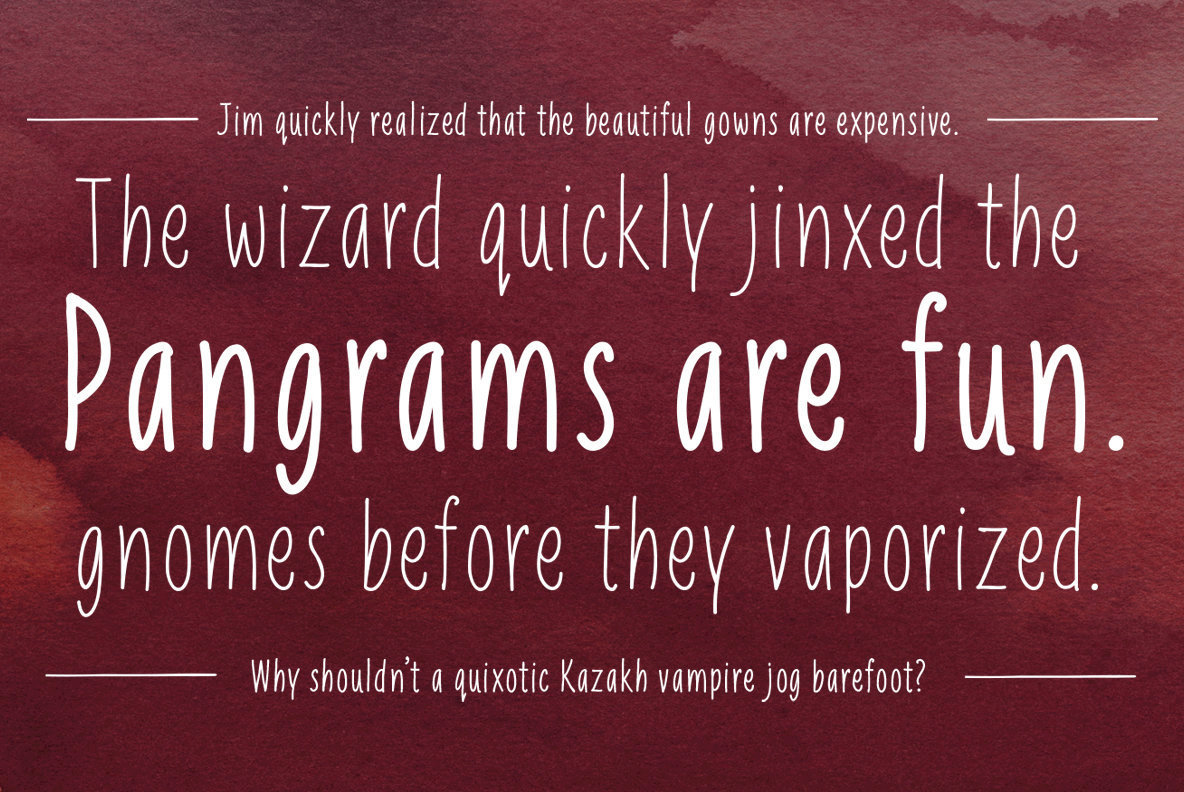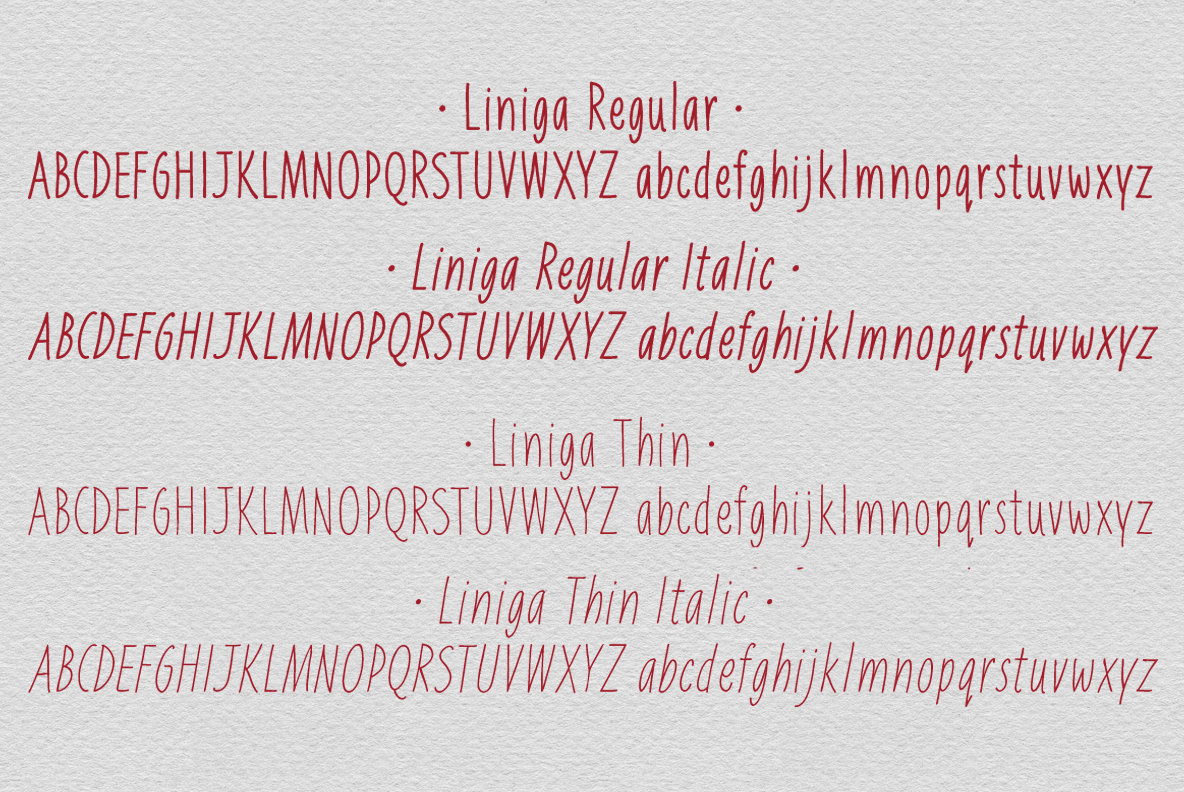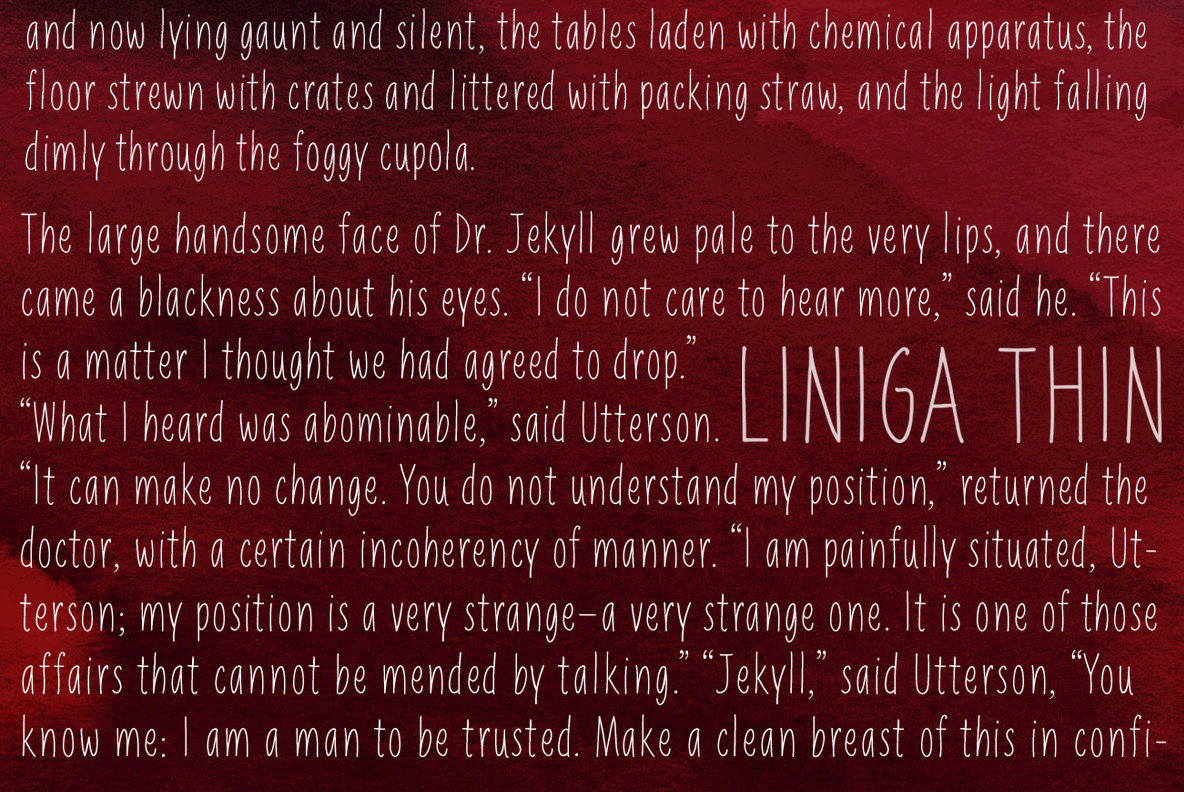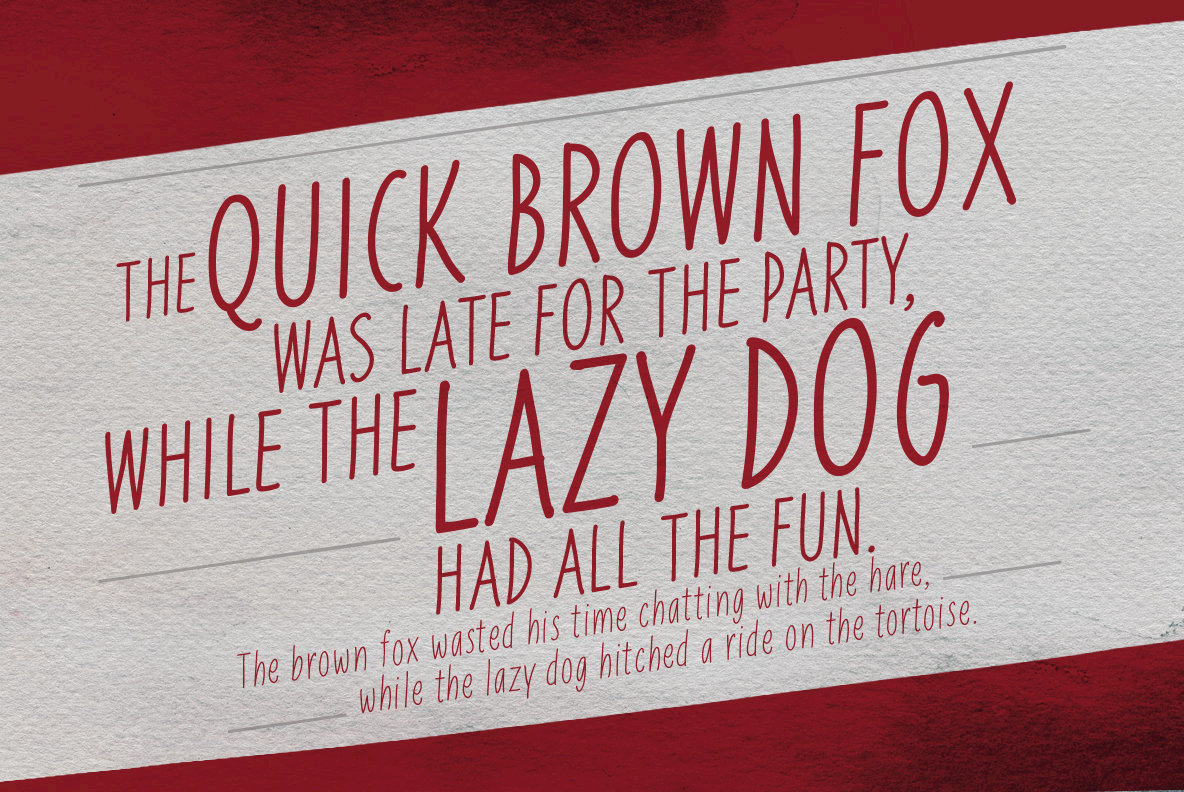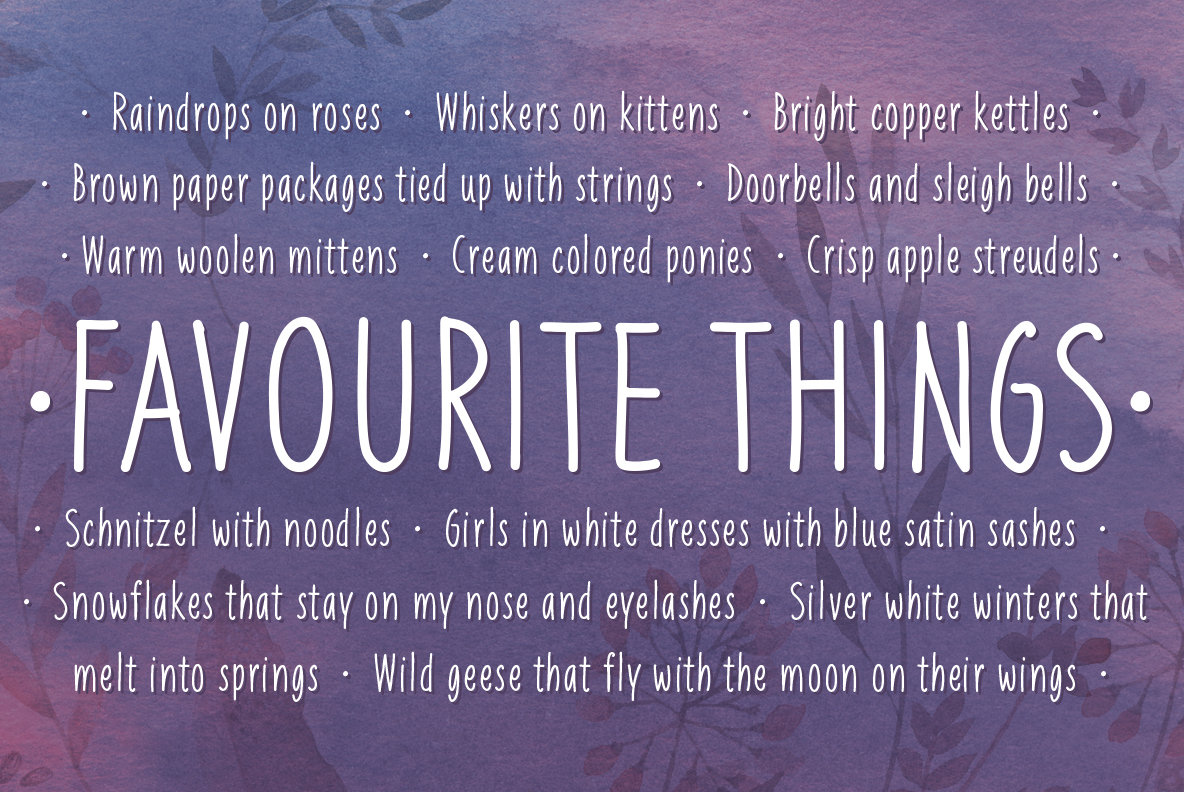
Liniga Font
Liniga Thin
Liniga Thin Italic
Liniga
Liniga Italic
A tall, warm and friendly handwritten typeface with a simple structure and low contrast. Works well for both display and body text.